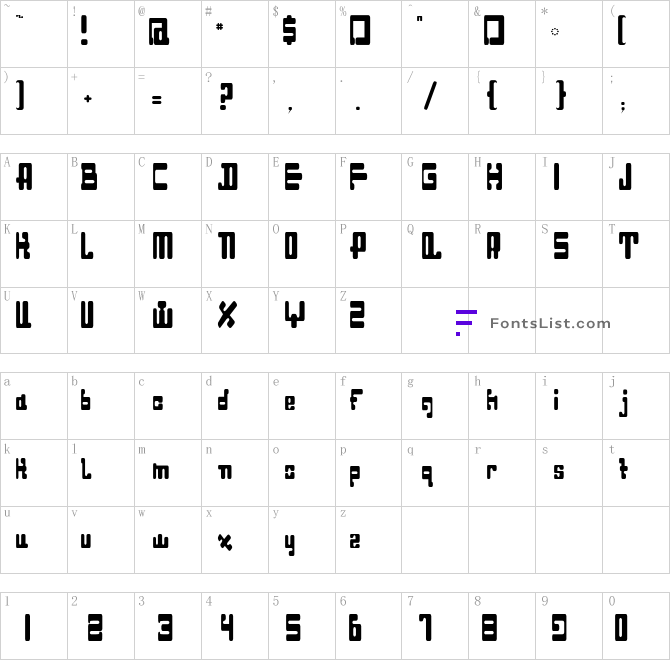
- Font Name:Dahgir RoundCondensed
Dahgir-RoundCondensed.otf is a very beautiful artistic font, Dahgir-RoundCondensed.otf is widely used in the design and printing of various books and pictures,Dahgir-RoundCondensed.otf has a strong visual impact,Dahgir-RoundCondensed.otf is a commonly used font in newspapers, magazines and books, and is used in posters, e-commerce Poster design, store design, logo design, font design and other fields.Dahgir-RoundCondensed.